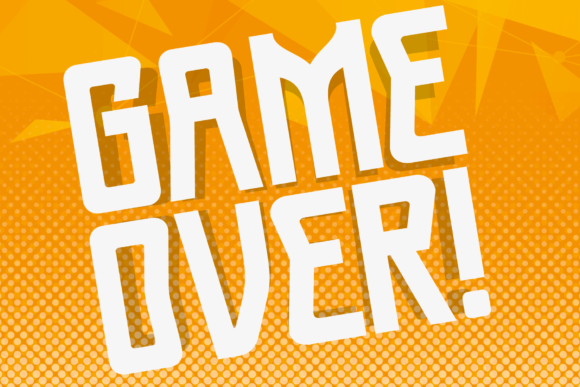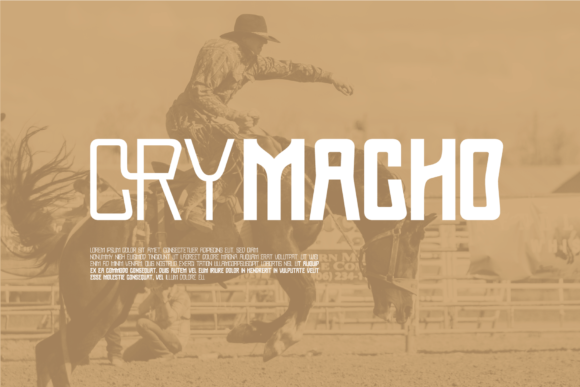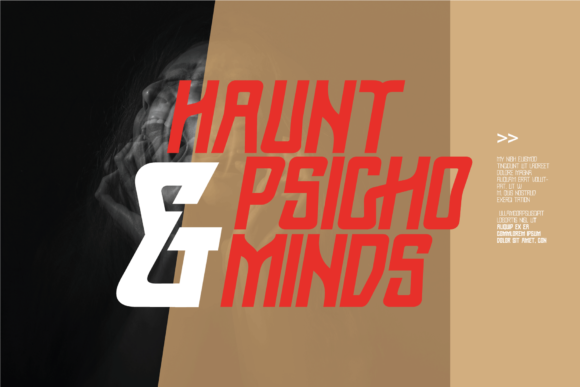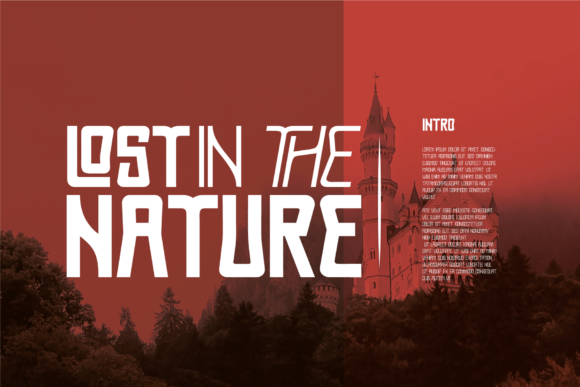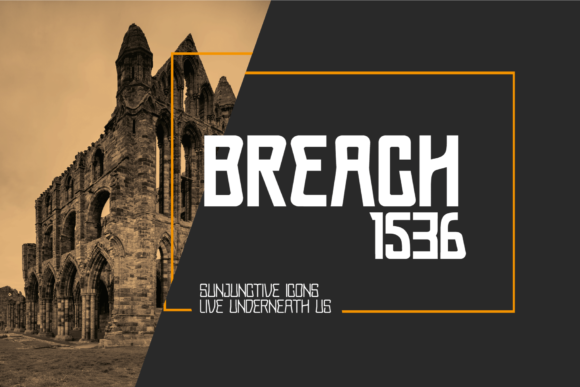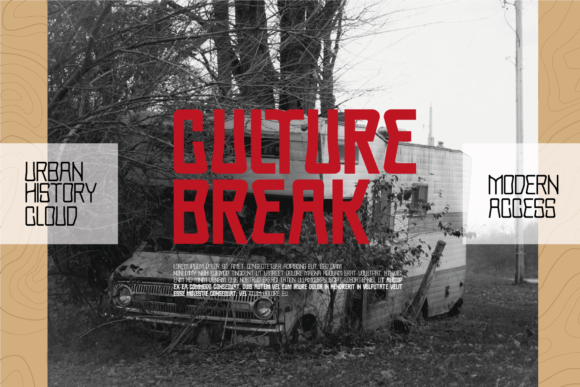
Introduction to Proach Font Font
Fonts play a crucial role in design, and the Proach Font font is a typeface that brings both character and versatility to any project. Whether you’re working on a branding project, a website, or a print design, the Proach Font font offers a unique style that can elevate your work.
Poarch is a clean, modern, and condensed font designed as a sans serif font with all caps.
It has a round tip angle and a different style from the common sans serif Proach is perfect for any project, and it works especially well on brochure/magazine header, logo tagline, flyer title, and paragraph text.
The Proach Font font is more than just a typeface – it’s a design tool that helps you communicate your message with style and clarity. Its unique character set and versatile design make it suitable for a wide range of applications, from elegant invitations to bold headlines.
With its carefully crafted letterforms and balanced proportions, the Proach Font font ensures readability and visual appeal across all mediums.
The Proach Font font stands out with its unique design, exceptional readability, and versatility across various design applications.